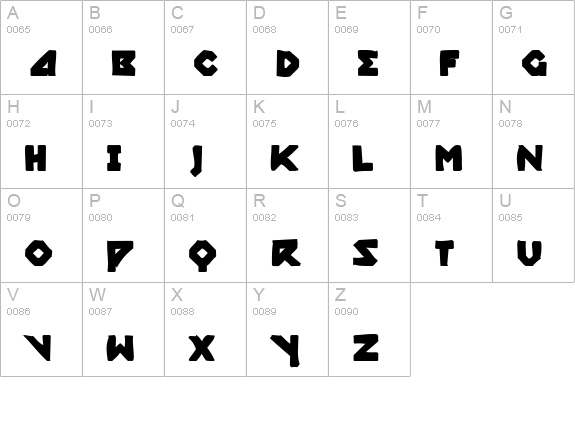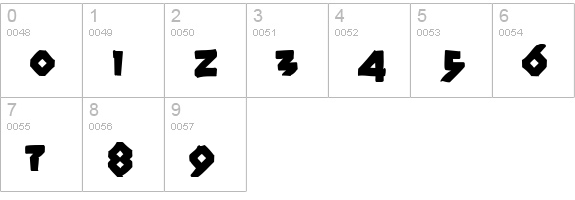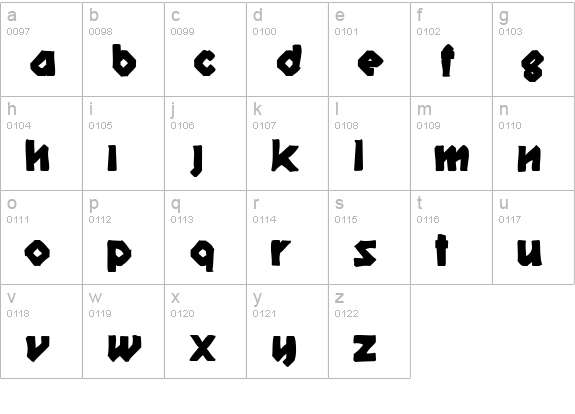
Relish Gargler Ink Font Details
Introducing Relish Gargler Ink font, a bold and edgy typeface that exudes personality and creativity. With its unique design and striking appearance, this font is perfect for making a statement in your projects. The rough edges and ink-inspired details give it a raw and authentic look, adding a touch of character to any design. What sets Relish Gargler Ink font apart is not only its originality but also its versatility. Whether you're creating posters, branding materials, or social media graphics, this font will grab attention and leave a lasting impression. Best of all, Relish Gargler Ink font is completely free to download at FontsMarket.com. So go ahead, unleash your creativity and elevate your designs with this captivating typeface. Let your imagination run wild and make a bold statement with Relish Gargler Ink font today!